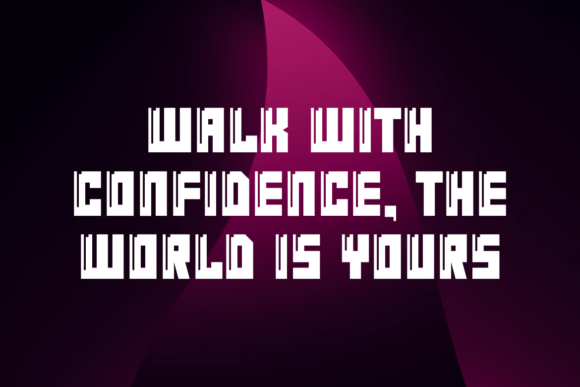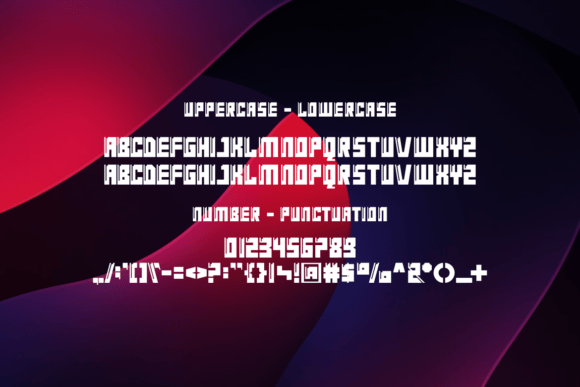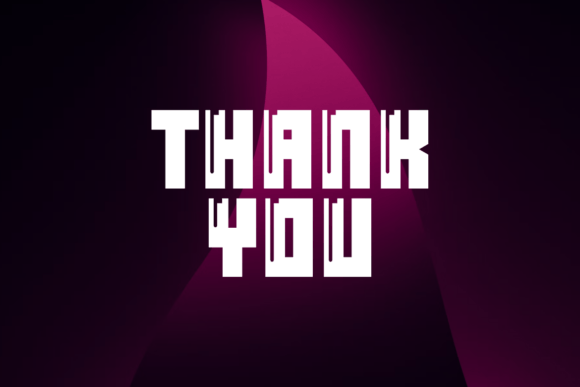
Introducing Diriwave Font: The Modern Display Font for Bold Designs
In the world of design, fonts play a crucial role in conveying the message and tone of a brand. A well-chosen font can elevate a design from ordinary to extraordinary. That’s why we’re excited to introduce Diriwave Font, a modern display font that’s perfect for designers and crafters looking to add a touch of boldness and authenticity to their projects.
What is Diriwave Font?
Diriwave Font is a bold and authentic display font designed to make a statement. Its unique and modern style makes it perfect for a variety of applications, from logos and t-shirt printing to creative products and more. Whether you’re working on a branding project, a marketing campaign, or a personal design venture, Diriwave Font is sure to grab attention and leave a lasting impression.
Key Features of Diriwave Font
- Bold and Authentic: Diriwave Font is designed to be bold and authentic, making it perfect for designers who want to add a touch of confidence and personality to their designs.
- Modern Style: With its modern style, Diriwave Font is perfect for designers who want to stay on top of the latest design trends.
- Versatile: Diriwave Font is versatile and can be used in a variety of contexts, from logos and t-shirt printing to creative products and more.
- Easily Readable: Despite its bold style, Diriwave Font is easily readable, making it perfect for designs that require a clear and concise message.
Use Cases for Diriwave Font
Diriwave Font is perfect for a variety of design projects, including:
- Logos: Diriwave Font is perfect for creating bold and memorable logos that make a statement.
- T-Shirt Printing: With its bold style, Diriwave Font is perfect for t-shirt printing and other apparel designs.
- Creative Products: Diriwave Font can be used to create unique and eye-catching designs for creative products, such as posters, flyers, and brochures.
- Branding Projects: Diriwave Font is perfect for branding projects that require a bold and authentic font.
Why Choose Diriwave Font?
There are many fonts available in the market, but Diriwave Font stands out from the rest due to its unique features and benefits. Here are some reasons why you should choose Diriwave Font for your next design project:
- Unique Style: Diriwave Font has a unique and modern style that sets it apart from other fonts.
- High-Quality Design: Diriwave Font is designed with high-quality and precision, ensuring that it looks great in any design.
- Support for Multiple Languages: Diriwave Font supports multiple languages, making it perfect for designers who work with international clients.
| Font Name | Diriwave Font |
| Author | MUKHLISIN |
In conclusion, Diriwave Font is a modern display font that’s perfect for designers and crafters looking to add a touch of boldness and authenticity to their projects. With its unique style, versatility, and high-quality design, Diriwave Font is sure to elevate your designs to the next level. Whether you’re working on a branding project, a marketing campaign, or a personal design venture, Diriwave Font is the perfect choice.